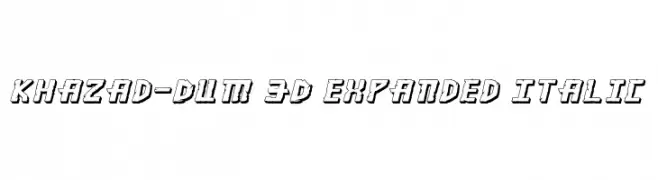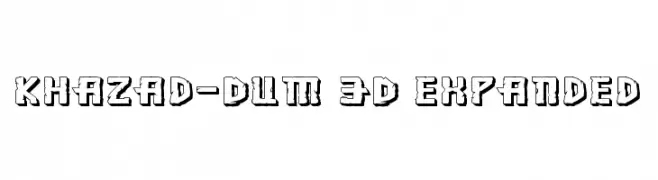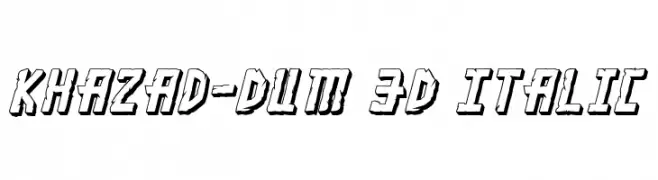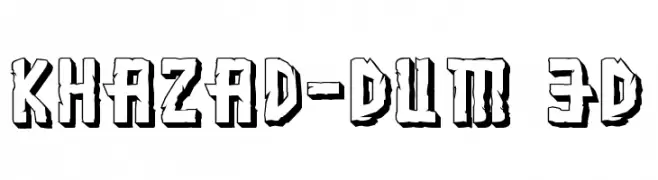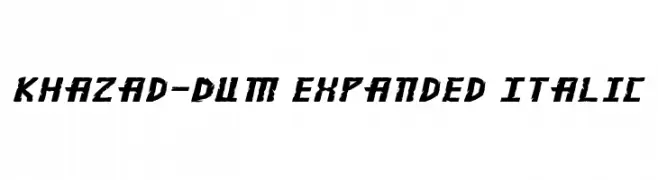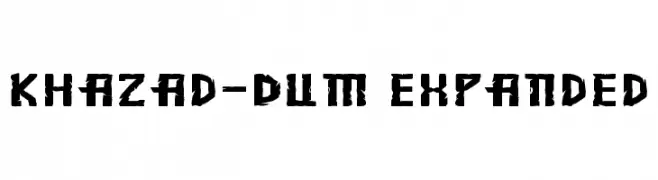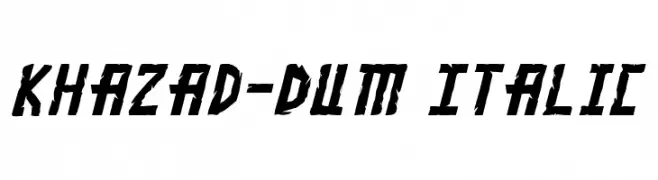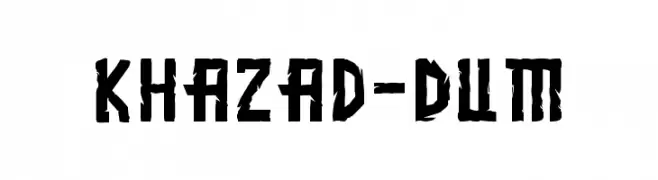
A bold, angular font with a rugged, ancient stone-carved appearance.
A bold, 3D stone-textured font with a rugged, angular design.
A bold, 3D font with a chiseled, stone-like appearance and rugged texture.
A bold, 3D expanded italic font with a futuristic and dynamic style.
A bold, 3D italic font with a modern, edgy style and shadow effects.
A bold, angular font with a rugged, chiseled appearance.
Bold, angular, and italicized with an expanded width, perfect for dynamic headlines.
A bold, angular, and italicized font with a rugged, rune-like appearance.